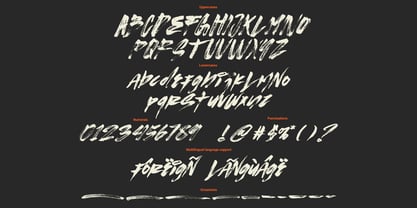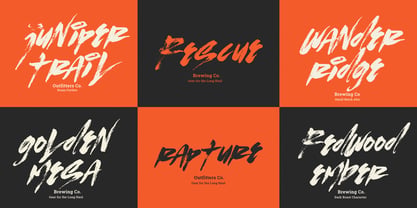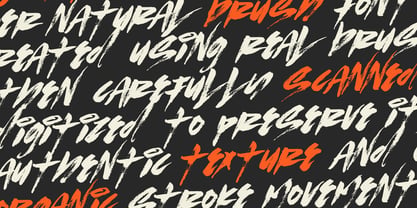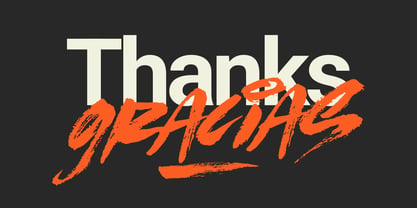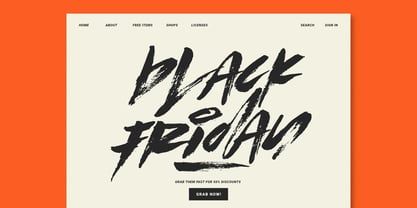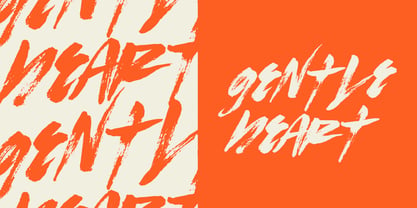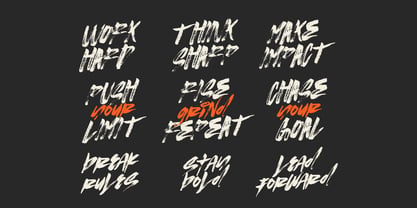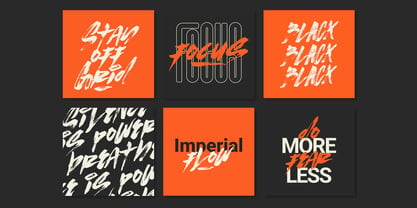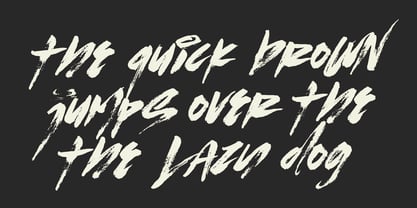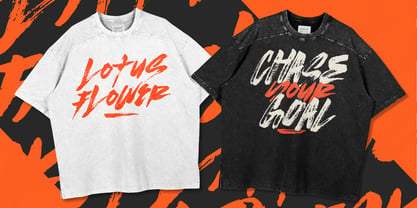
Fake Plastic Brush
by Ferry Ardana Putra
The Fake Plastic Brush Font Family was designed by Ferry Ardana Putra and published by Ferry Ardana Putra. Fake Plastic Brush contains 1 styles. More about this family
Fake Plastic Brush is a bold and expressive handpainted brush font created using real brush and ink, then carefully scanned and digitized to preserve its authentic texture and raw brush energy. This font captures the imperfect beauty of hand-painted strokes with a strong artistic character. Unlike digital brush simulations, Fake Plastic Brush delivers real ink flow, pressure variation, and organic imperfections—making it perfect for designers who want a genuine handcrafted look. Handpainted Brush Font With Real Ink Texture Fake Plastic Brush is designed as a true handpainted brush font, combining traditional painting techniques with modern typography needs. Each letter reflects real hand movement, resulting in dynamic strokes and natural rhythm. The textured brush strokes give this font a bold and slightly rough personality, ideal for designs that need energy, attitude, and artistic expression. Authentic Handpainted Style This handpainted brush font was created using real brush and ink, then scanned to maintain: Natural brush pressure Organic stroke movement Raw ink texture Imperfections that enhance authenticity Every detail helps deliver a truly handcrafted feel. Fake Plastic Brush is perfect for: Logo branding Poster design Album artwork Streetwear design Social media graphics Quotes and typography Packaging design Creative projects Features of Fake Plastic Font Uppercase & lowercase letters Numbers & punctuation Multilingual support PUA-encoded characters OpenType features 276+ glyphs Aternates Included Dry brush swashes included
Designers: Ferry Ardana Putra
Foundry: Ferry Ardana Putra